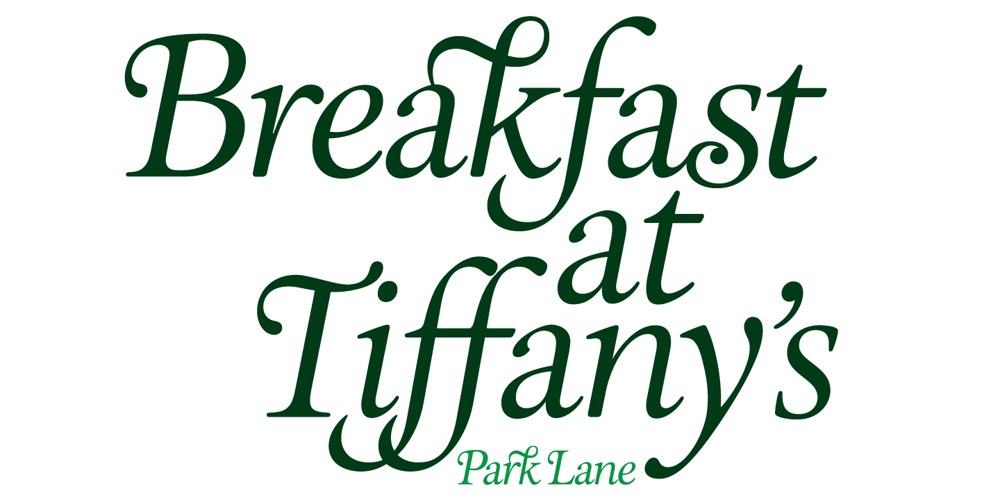
Park Lane Font Family was designed by Alan Meeks and published by Alan Meeks. Park Lane contains 2 styles and family package options. A Classic italic Roman with a set of alternative swash caps and a number of original swash lower case characters that can create a number of unusual ligatures.